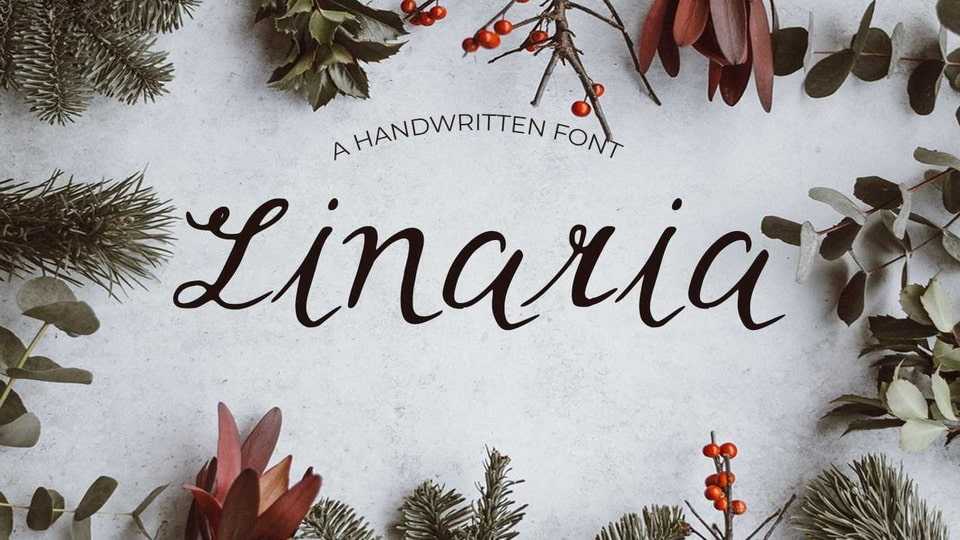
Download Linaria font, a lovely typeface with a unique, detailed, and handmade look. Linaria font looks amazing in short texts and quotes for a classy appearance
Designer: Eldamar Studio